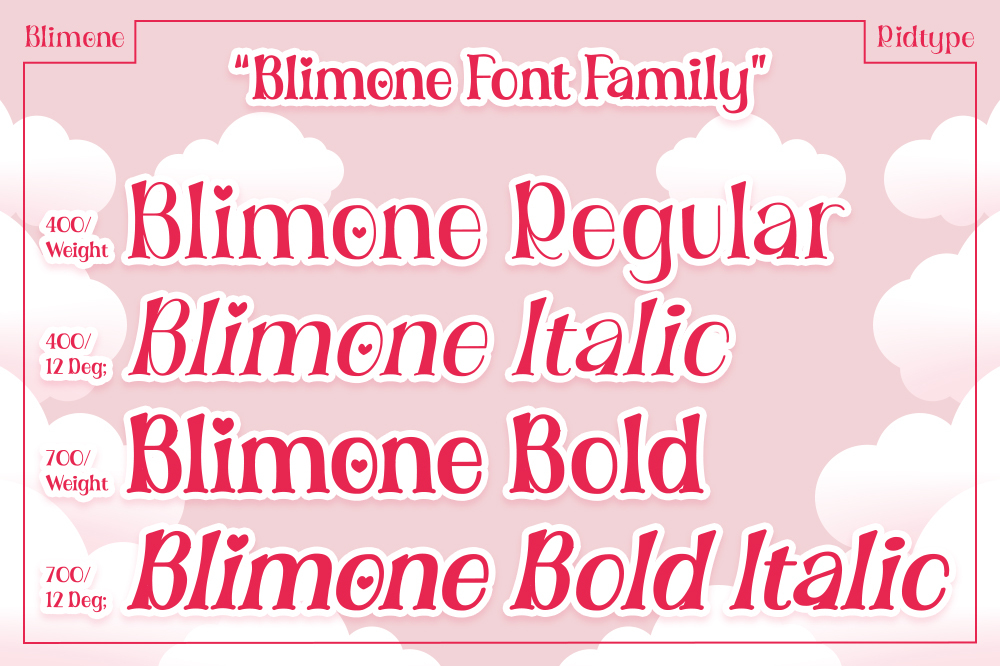
Blimone
Blimone is inspired by handicrafts that are combined with Valentine's style to add a sweet, funny, full of love and affection to every implementation of the letters used.
Details Font : Display Font
Style : 4 Style (Regular, Italic, Bold, Bold Italic)